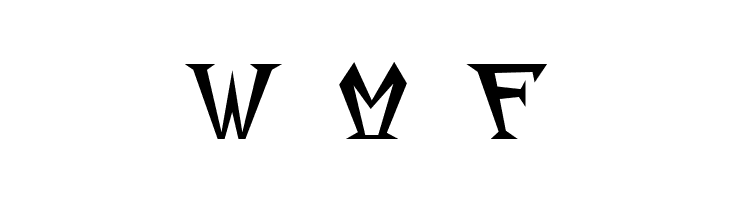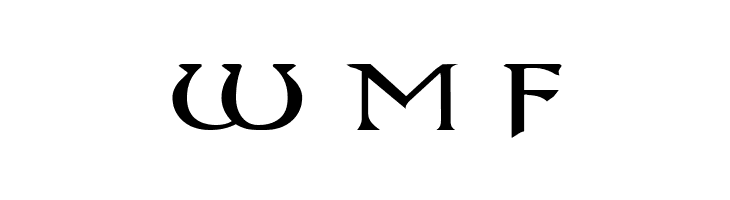
A bold, angular font with a futuristic and geometric style.
A bold, medieval-inspired serif font with sharp, angular features.
A bold, edgy font with sharp angles and thick strokes, perfect for standout designs.
A playful, cheese-inspired font with bold, rounded letters and fun details.
A bold, snow-topped decorative font perfect for festive designs.